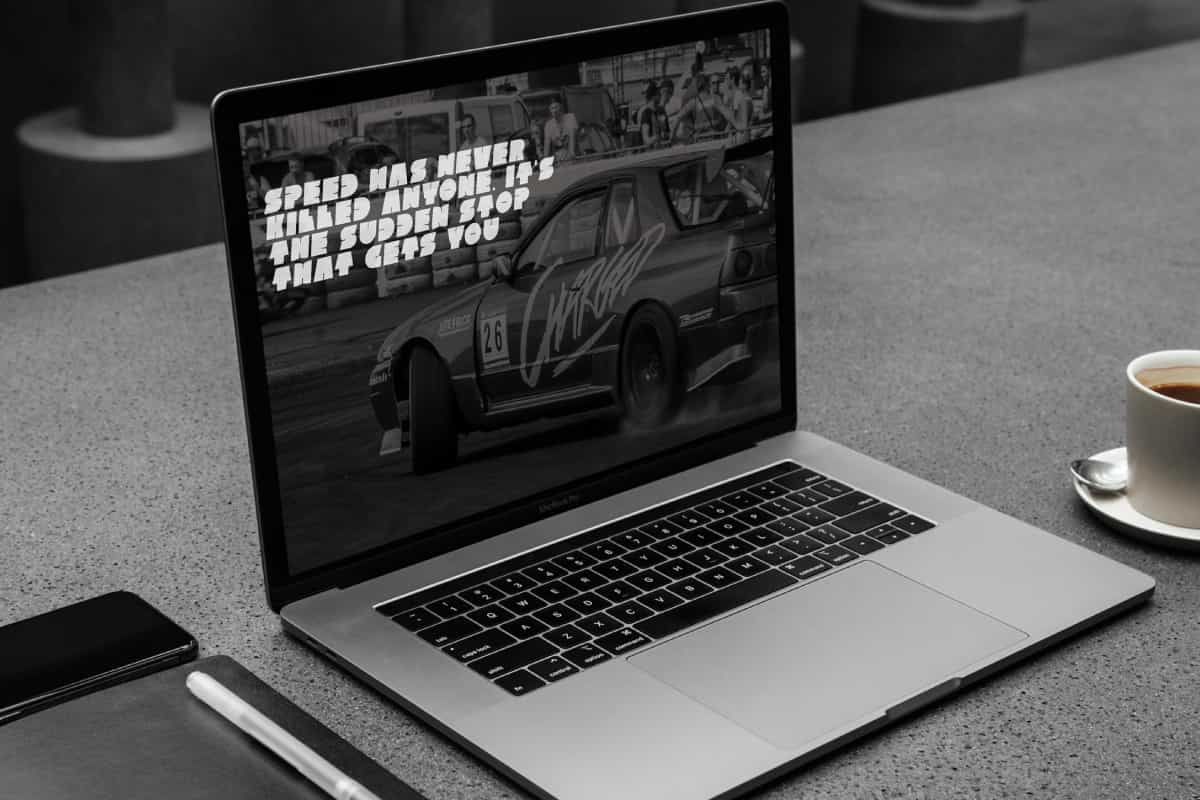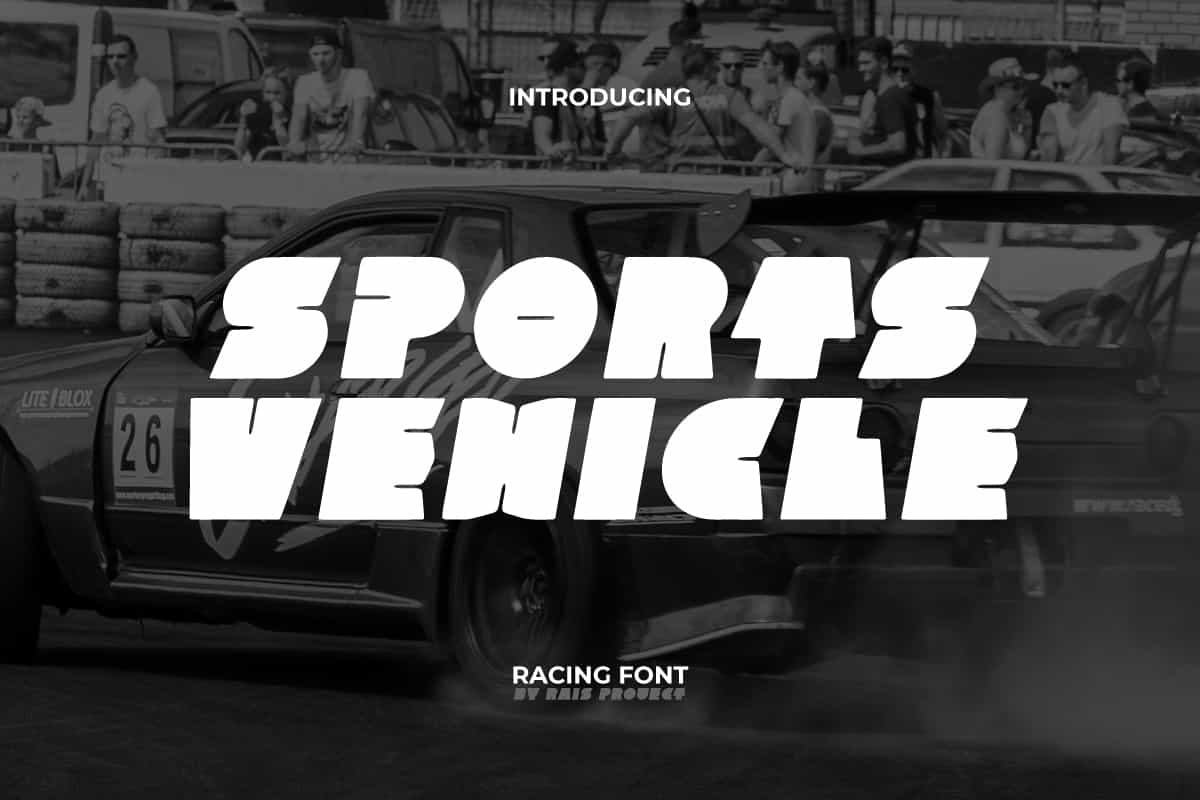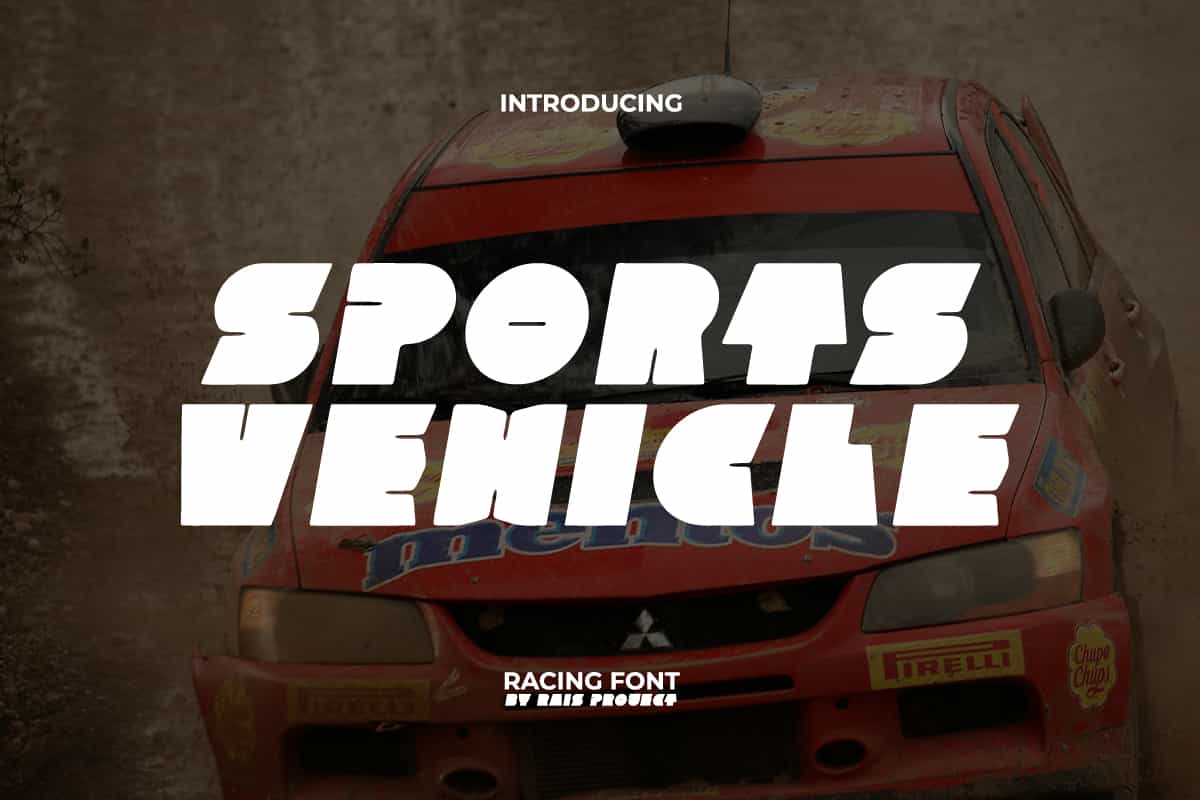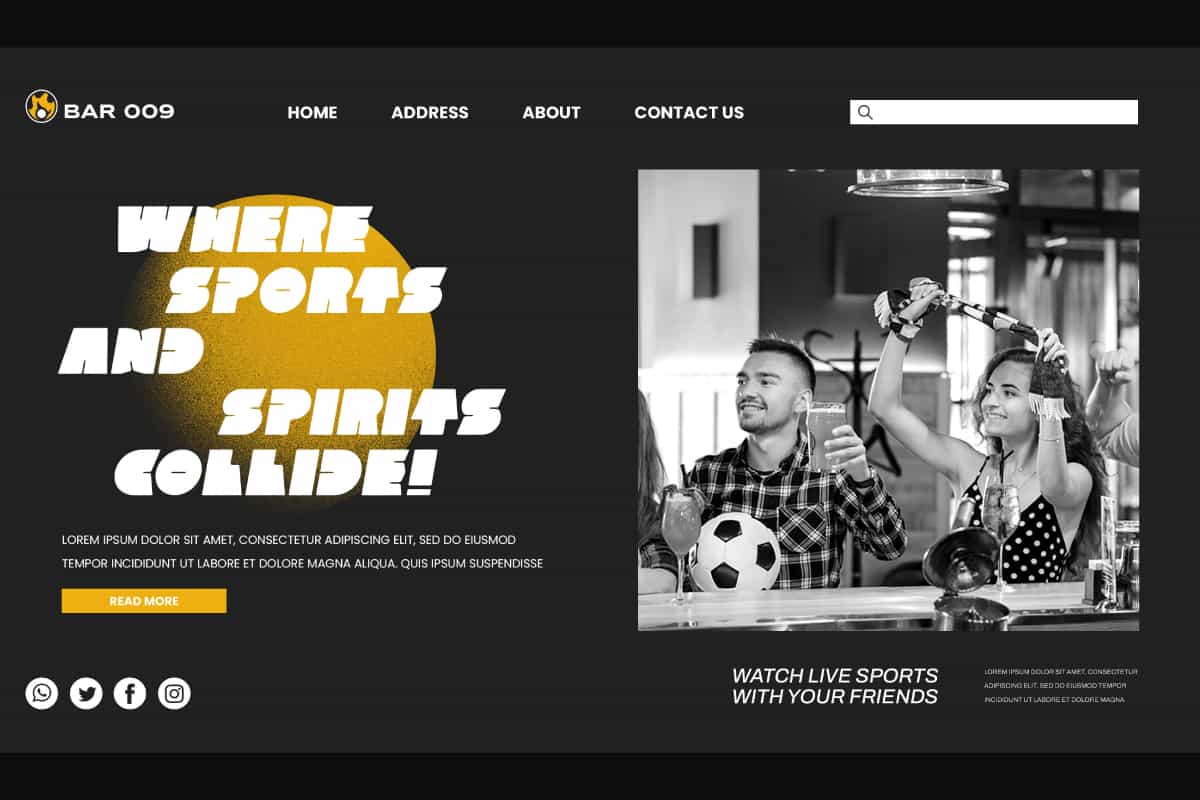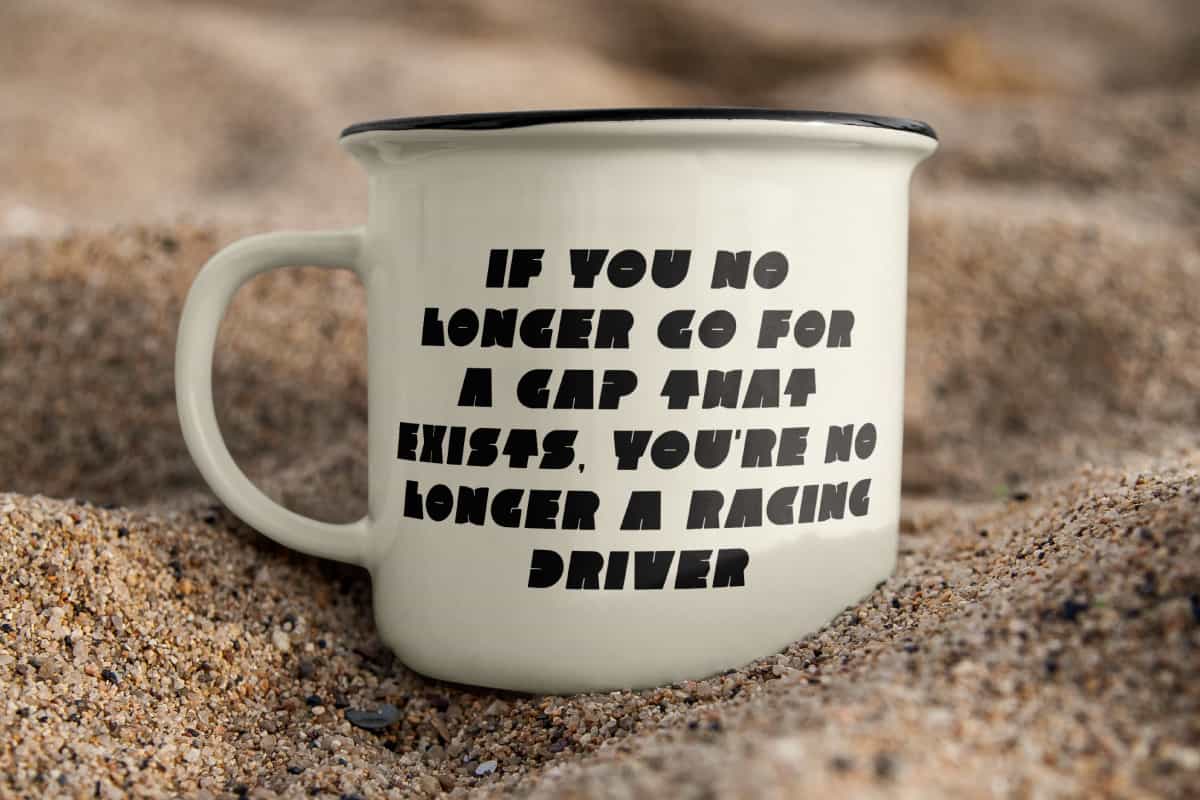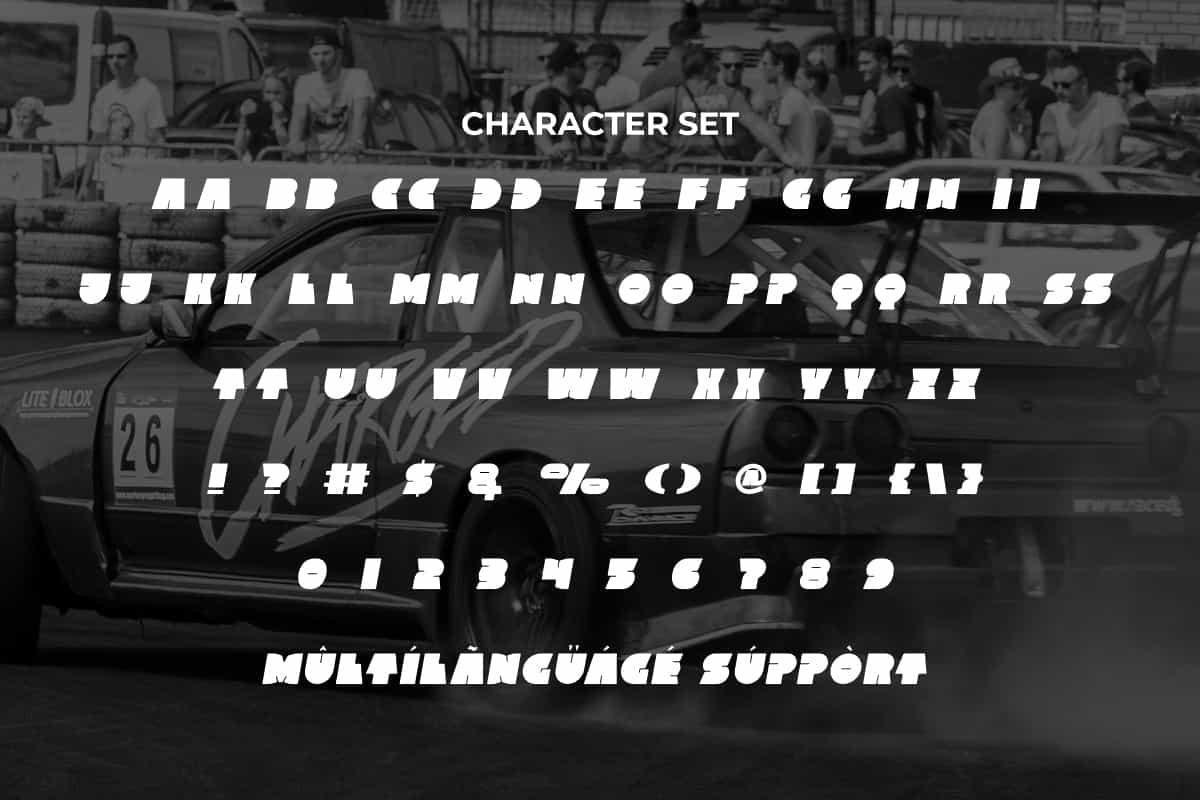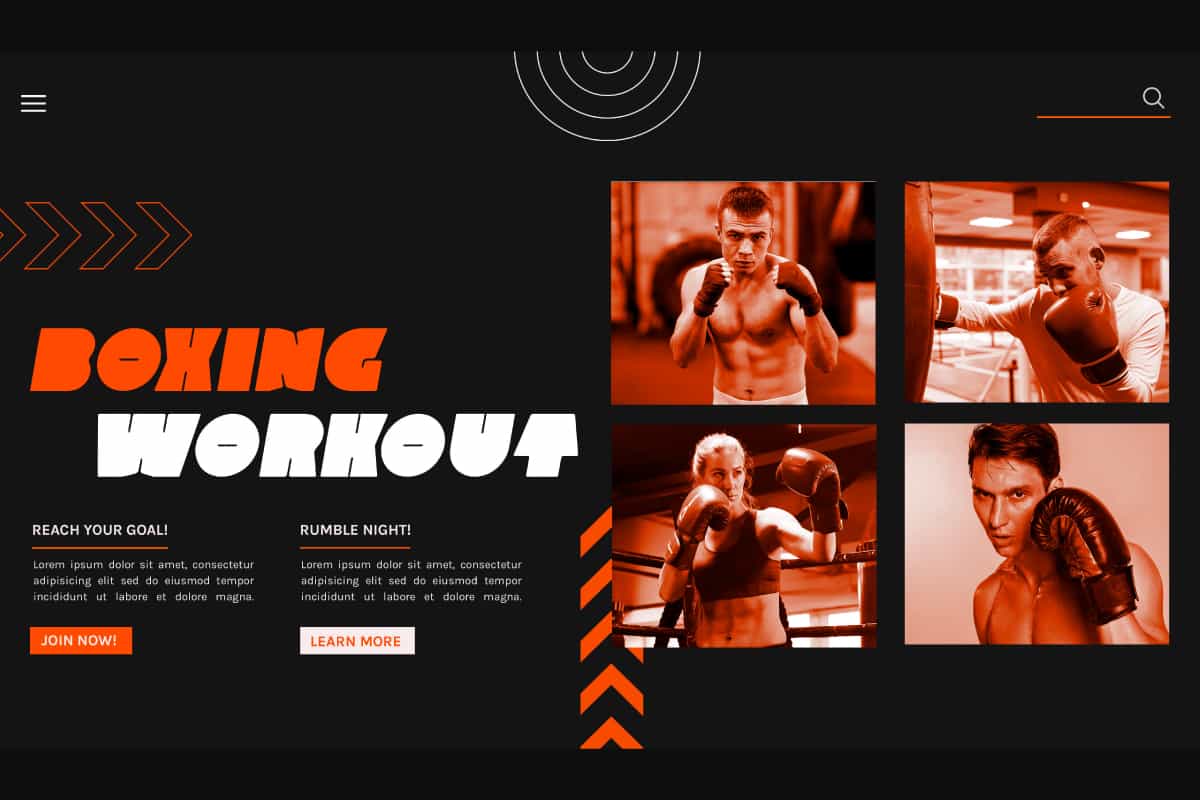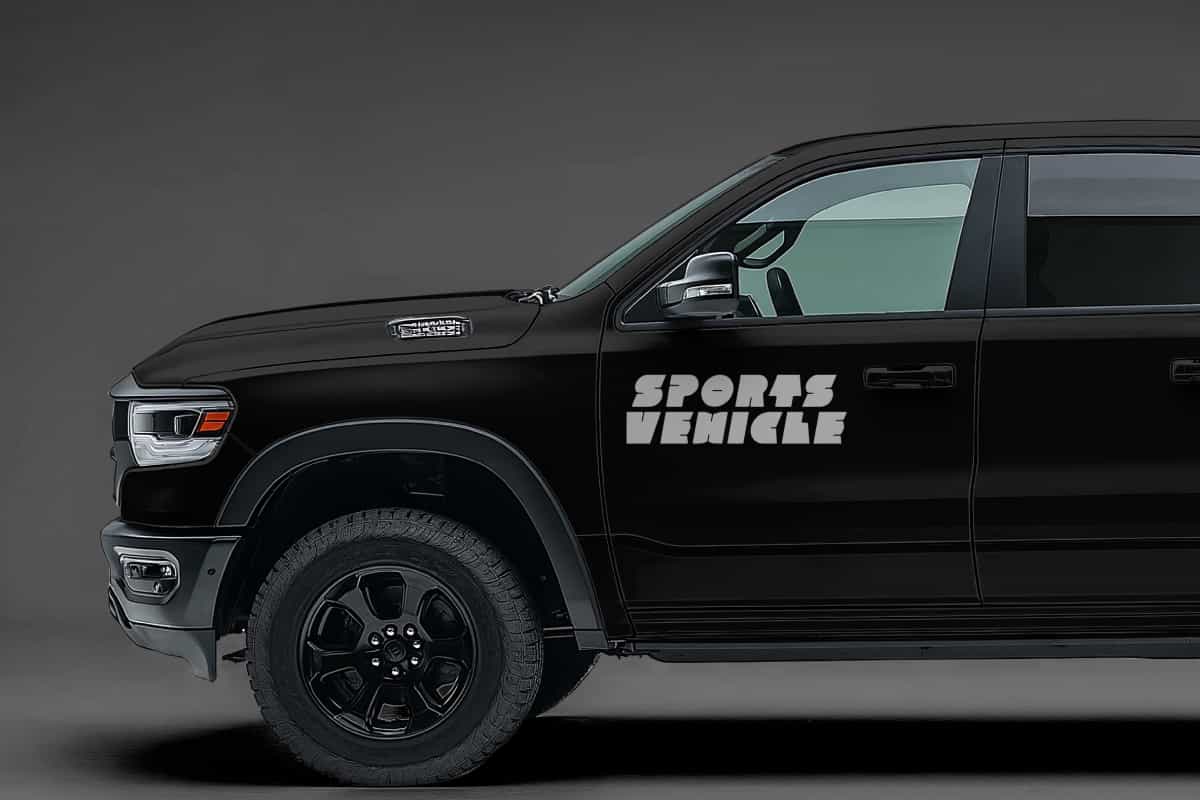
Sports Vehicle Font
Sports Vehicle Font is a playful cartoonish racing display font. This font will be perfect for your designs with a fun racing concept!
Sports Vehicle Font is a playful cartoonish racing display font. This font will be perfect for your designs with a fun racing concept. This font has thick, cartoon-like characters with thin lines that allow anyone who sees it to know what letter it is. It will be good for label, poster, invitation, signage, cover, menu, custom design, brand image, product packaging, quotes, stationery, web, and more!
Introducing Sports Vehicle Display Font – a bold, dynamic, and high-energy typeface inspired by the speed and power of competitive sports. With strong strokes, sharp angles, and a modern display design, Sports Vehicle is built to deliver intensity and motion in every letter. Perfect for racing posters, sports branding, gaming graphics, event promotions, and advertising campaigns, this font brings unstoppable energy to your creative projects.
Sports Vehicle Display Font captures the excitement of speed and competition. Its striking letterforms are perfect for logos, product packaging, merchandise, and social media content that need to grab attention instantly. Whether you’re working on motorsports branding, esports visuals, or lifestyle promotions, Sports Vehicle gives your designs a bold, professional edge.
Sports Vehicle Display Font includes a full set of Uppercase and Lowercase Letters, Numerals, Punctuation and Symbol. This beautiful font will be suitable for various industries, such as automotive, sports, game, movie, fashion, accessories, advertisement, event or festival, cafe, printing, publishing, etc.